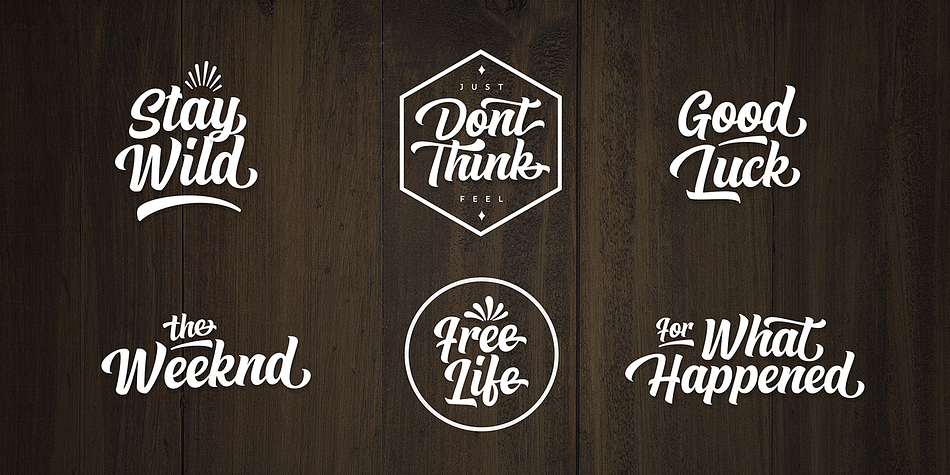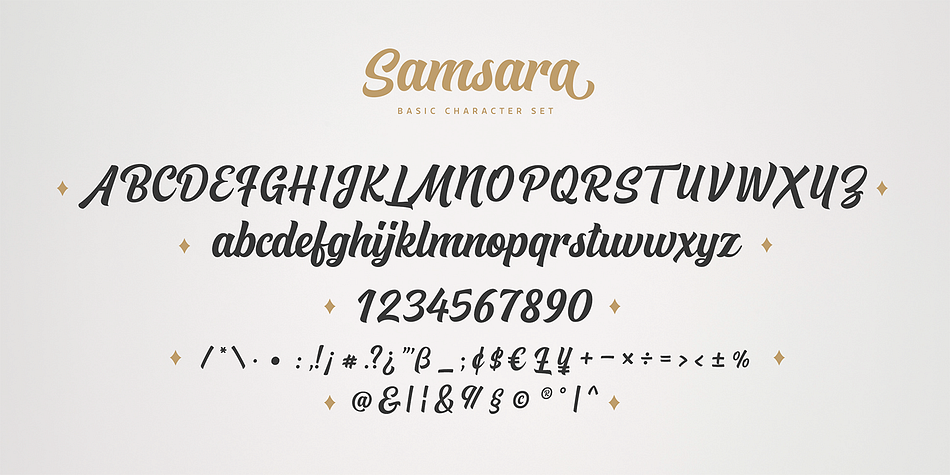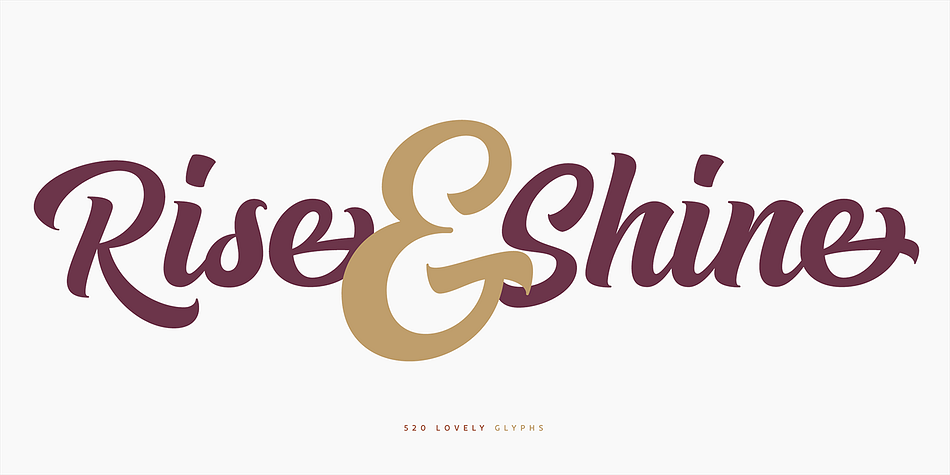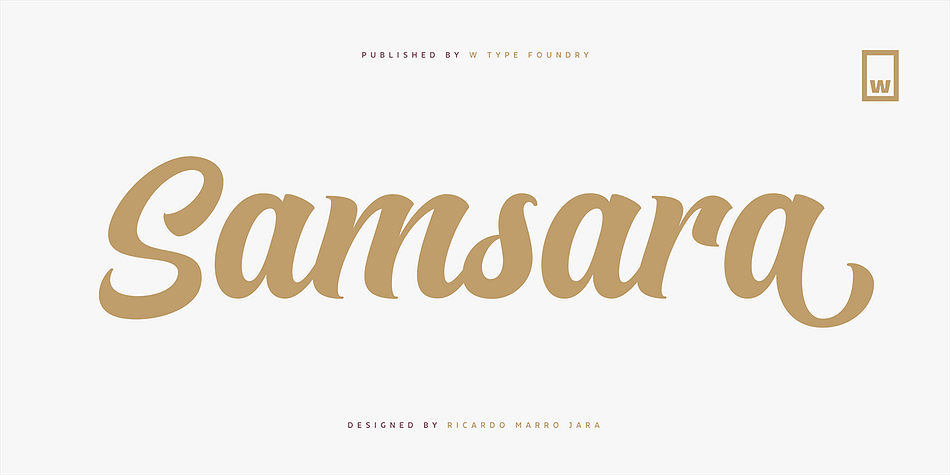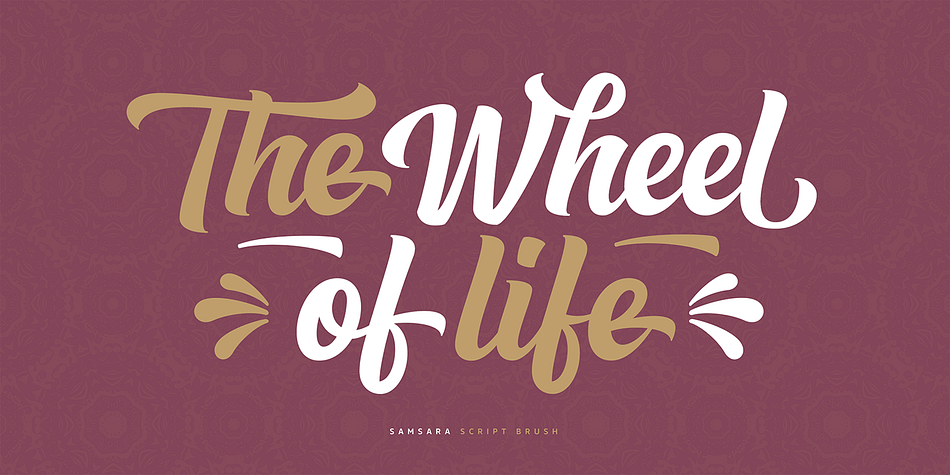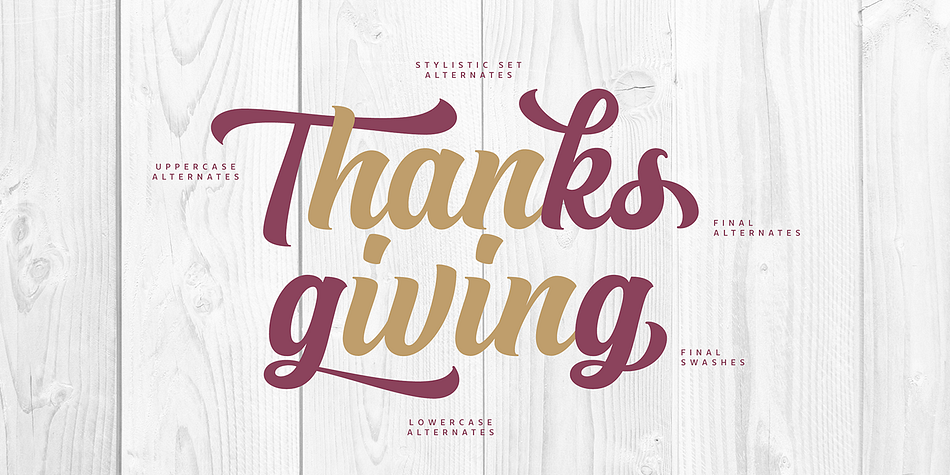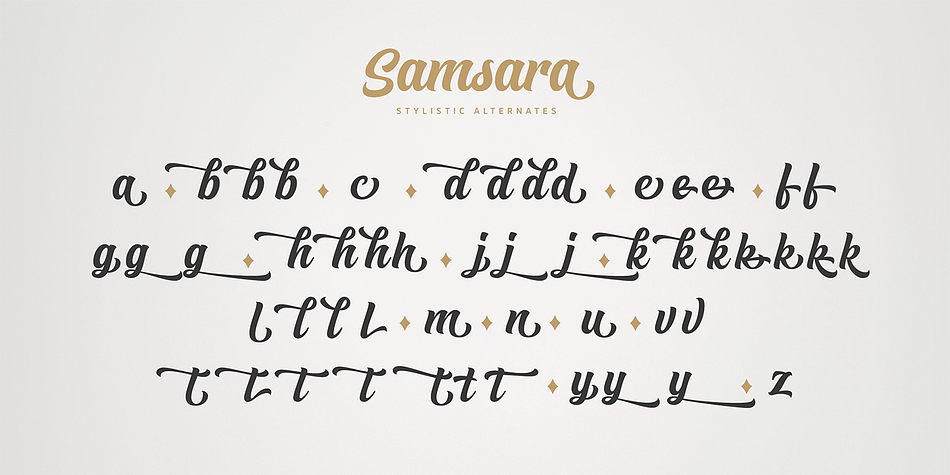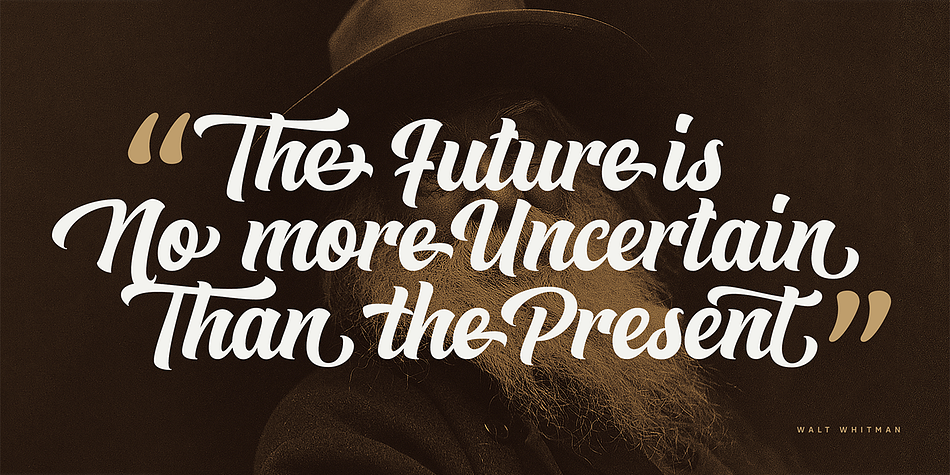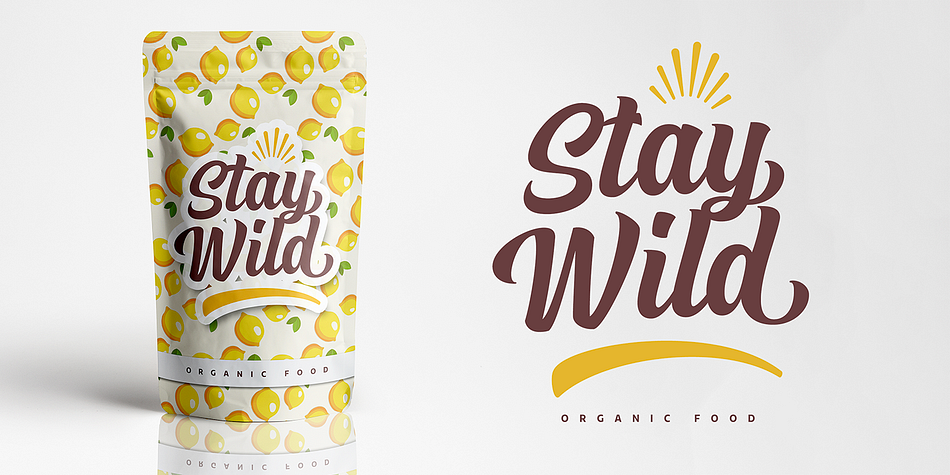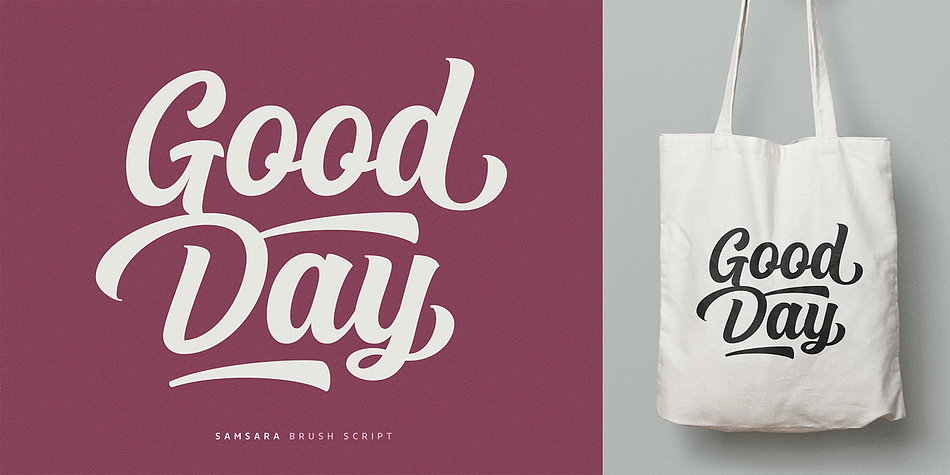
Designed by Ricardo Marro, Samsara is a dingbat and brush script font family. This typeface has two styles and was published by W Foundry.
Samsara is a cursive typeface inspired by calligraphy tools. Its shapes and gestures convey an organic-modern style which generates the texture of a brush tip.
Samsara not only has a great versatility, but also is suitably to create short texts such as branding and short messages.
It comes with OpenType features, stylistic sets, special ligatures, and swashes, which were designed specially to let your imagination fly.
Foundry | W Type Foundry |
Styles | Brush Script, Dingbat |
Designer | Ricardo Marro |